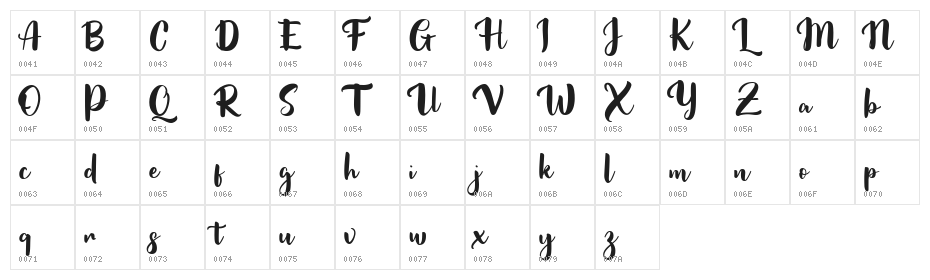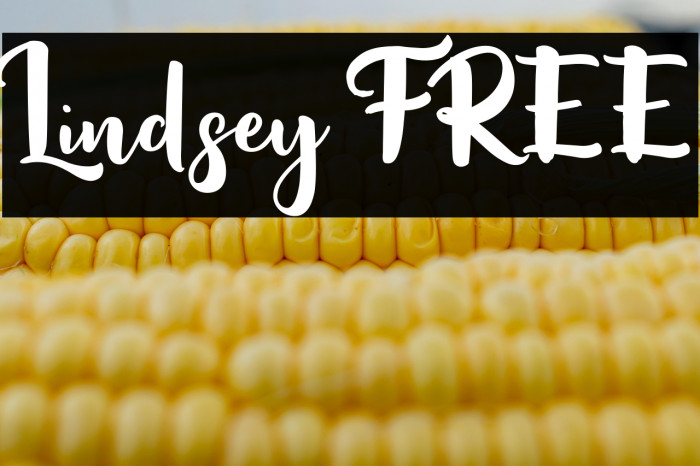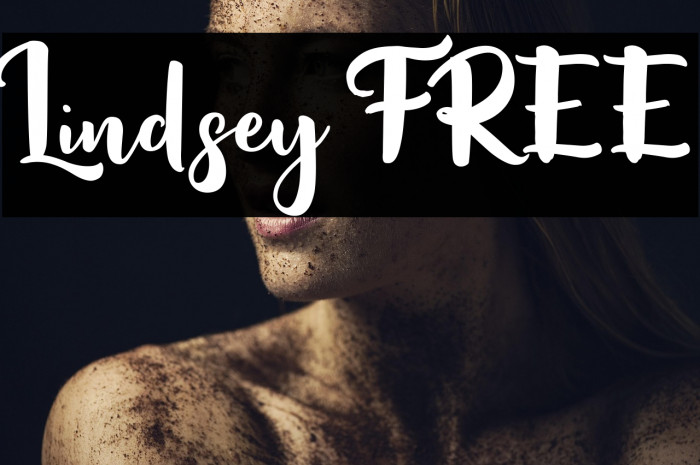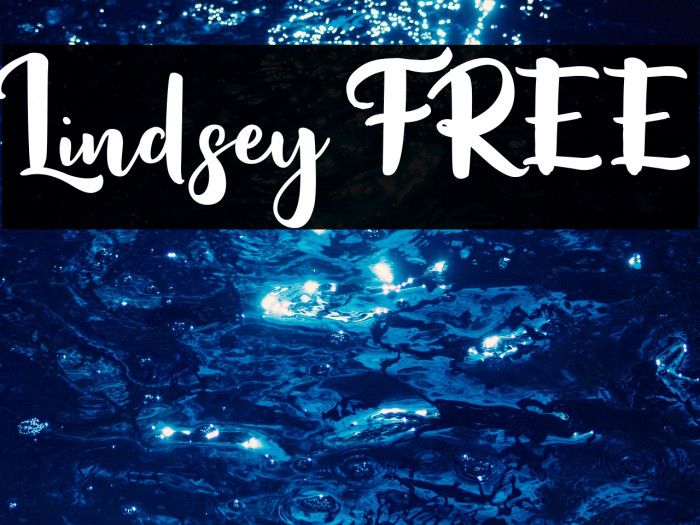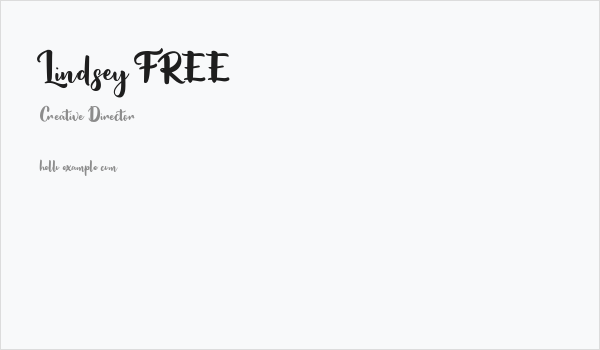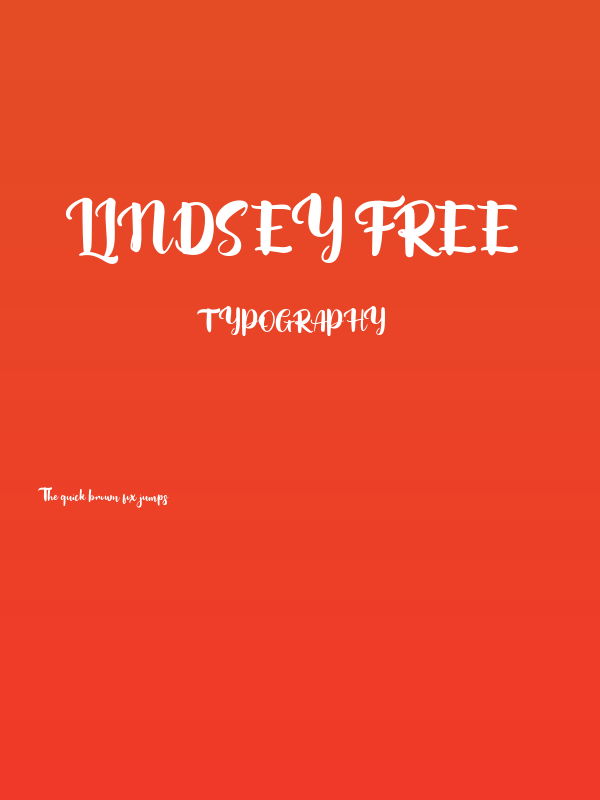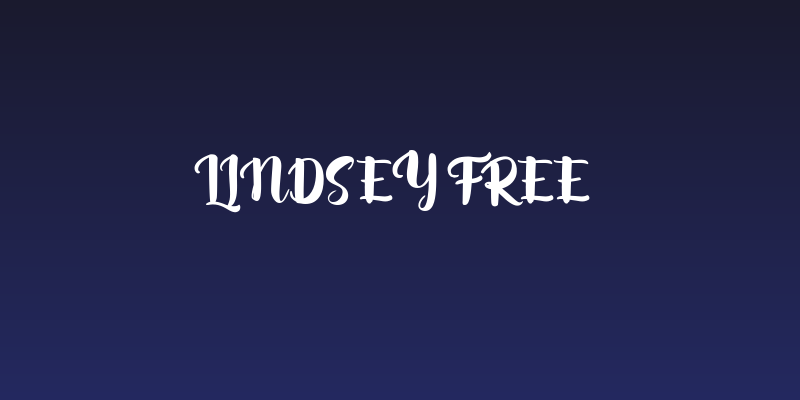
Lindsey FREE Font
Lindsey FREE Description
This font features a bold, flowing script style that exudes elegance and creativity. The characters are interconnected with smooth, sweeping curves, giving it a handwritten appearance. The uppercase letters maintain a consistent height, while the lowercase letters vary in size, adding a dynamic and lively feel. The strokes are thick and confident, with a medium contrast that enhances readability while maintaining a decorative flair. This font is perfect for projects that require a personal touch, such as invitations, branding, and artistic designs.
Use CaseLogos, Headlines, Invitations
Proposed ProjectsIdeal for wedding invitations, branding, greeting cards, and artistic projects.